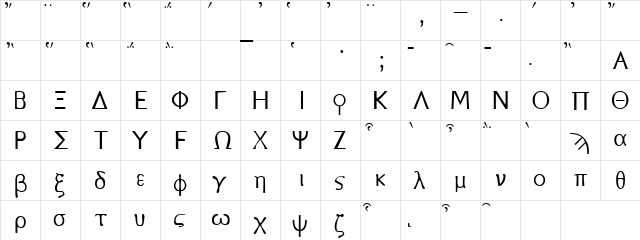
SPIonic Regular
Design Context for SPIonic Typeface
SPIonic offers clean, dependable letterforms without strong stylistic allegiance, making it a practical choice for designers who need flexibility.
Pro Tip: Use SPIonic in both headline and body roles to test its range before committing to a single application.